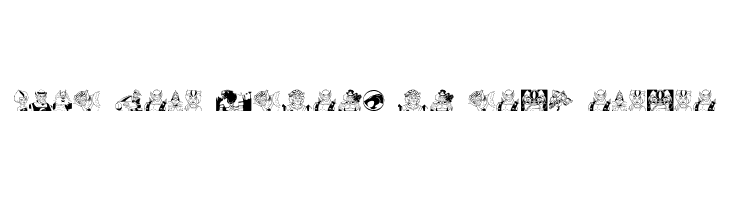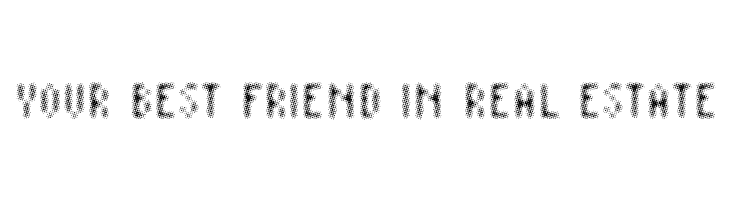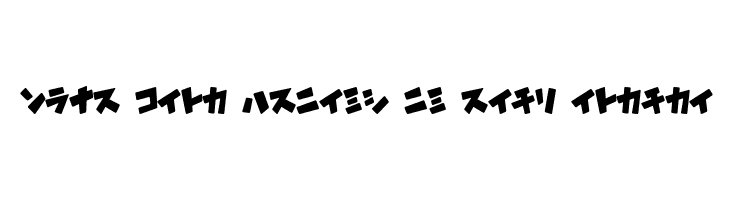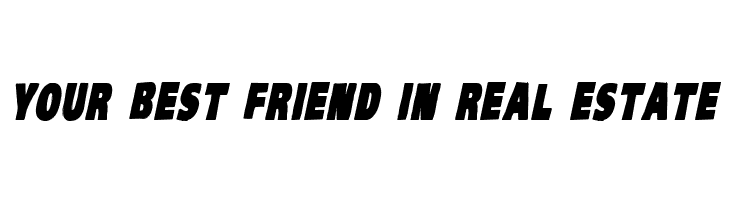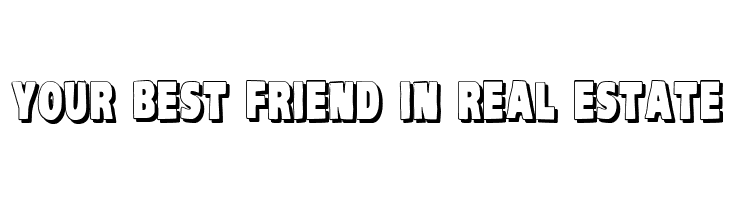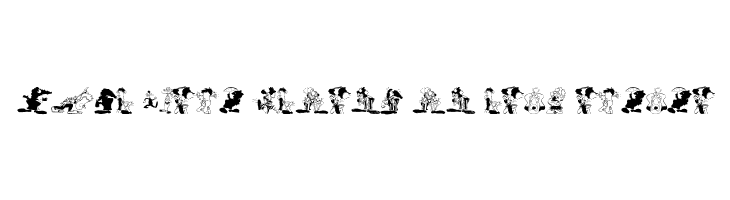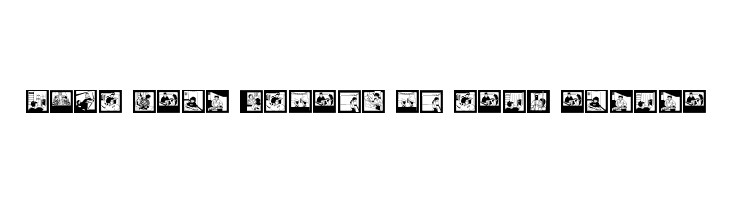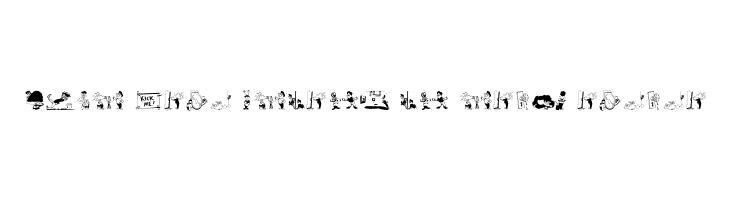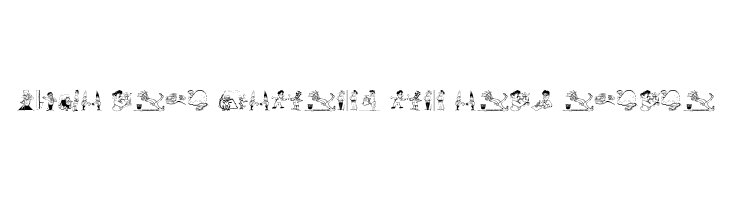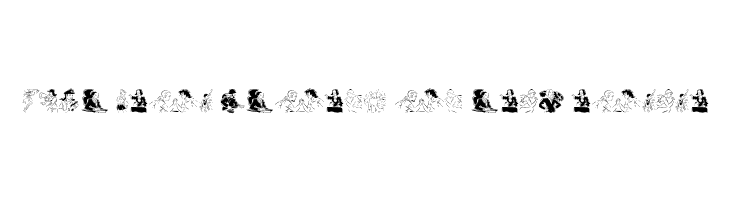
A collection of illustrated characters and scenes in a comic book style.
A cartoonish, illustrative display font made from character drawings.
A decorative font with comic-style illustrations for each character.
Cartoonish, prank-themed illustrative font with each character as a unique comic drawing.
Cartoonish, hand-drawn font with each letter as a comic illustration.
Illustrative display font featuring superhero women in action poses.
A bold, three-dimensional font with a vintage, comic book style.
Comic-inspired, illustrative display font with detailed scene-based glyphs.
Decorative font with illustrated human portraits in a comic style.
Cartoon dingbat font with luck-themed illustrations.
Cartoonish, hand-drawn font with each character depicted as a unique illustration.
Cartoonish, gangster-themed illustrated character font.
A decorative font featuring comic-style illustrations within each character.
Cartoonish, decorative font made of unique character illustrations.
Cartoonish, scene-based display font with gangster motifs.
A playful, cartoon character-based decorative font.
A playful, bold font with cartoonish elements and decorative patterns.
A playful, bold font with thick, rounded letters and a comic-like style.
A bold, outlined font with a playful, retro comic book style.
A playful, cartoon-style font with bold, expressive symbols and icons.
A bold, playful font with exaggerated angles and a dynamic style.
A bold, playful font with a 3D halftone effect and rounded, bubbly characters.